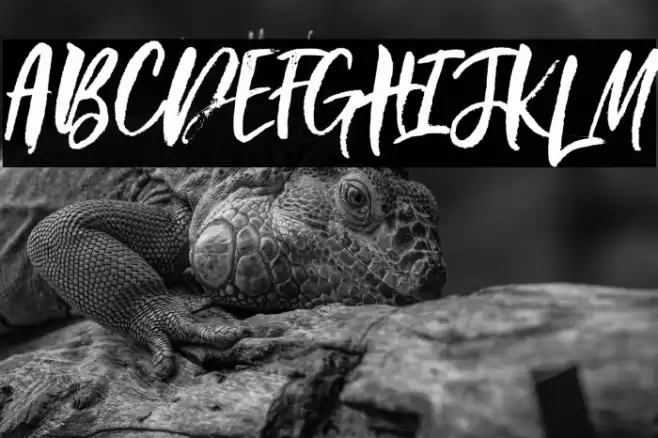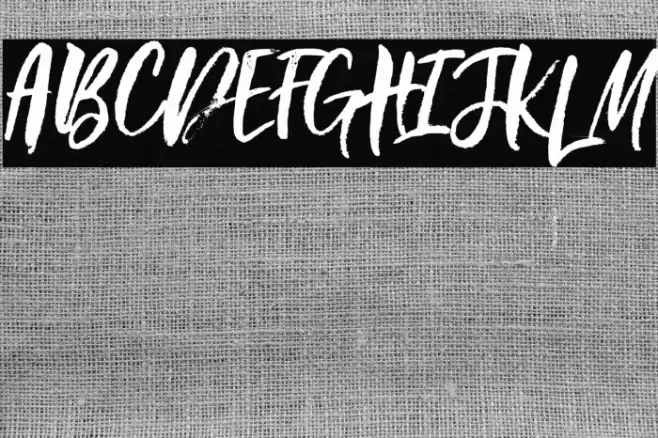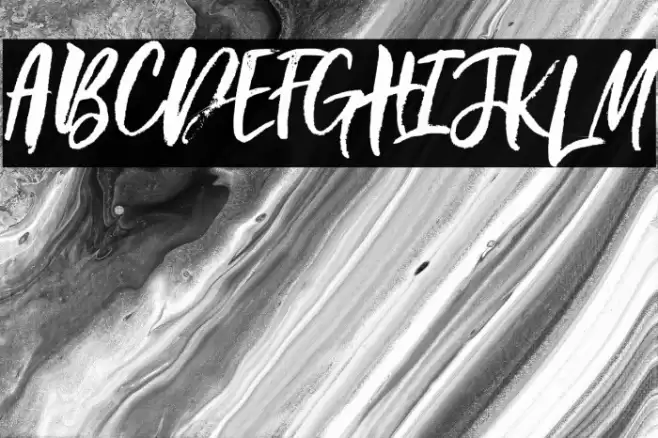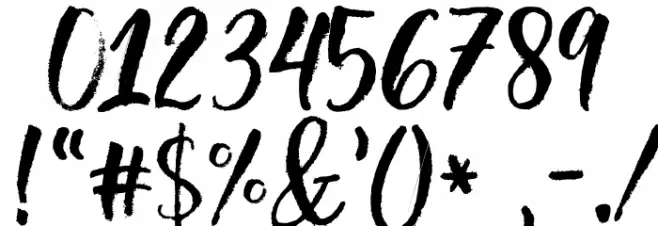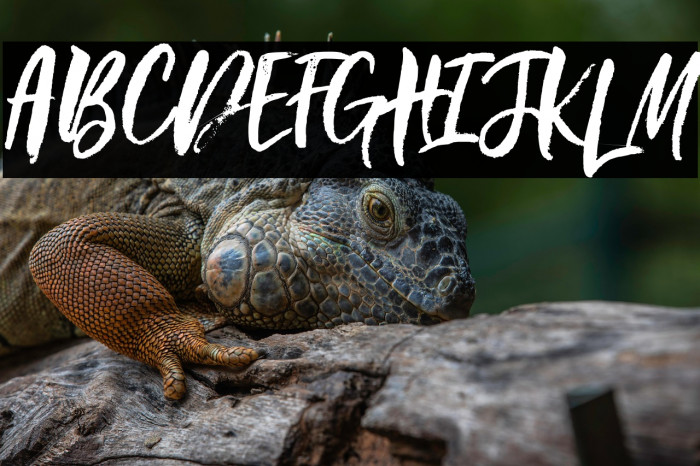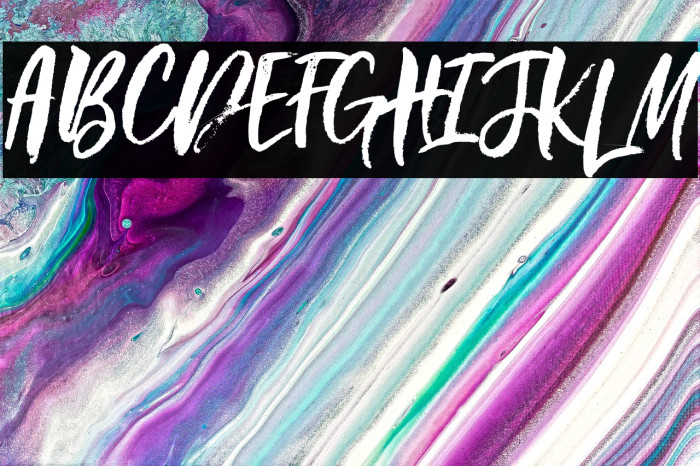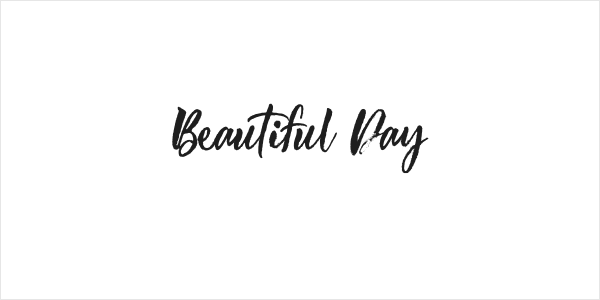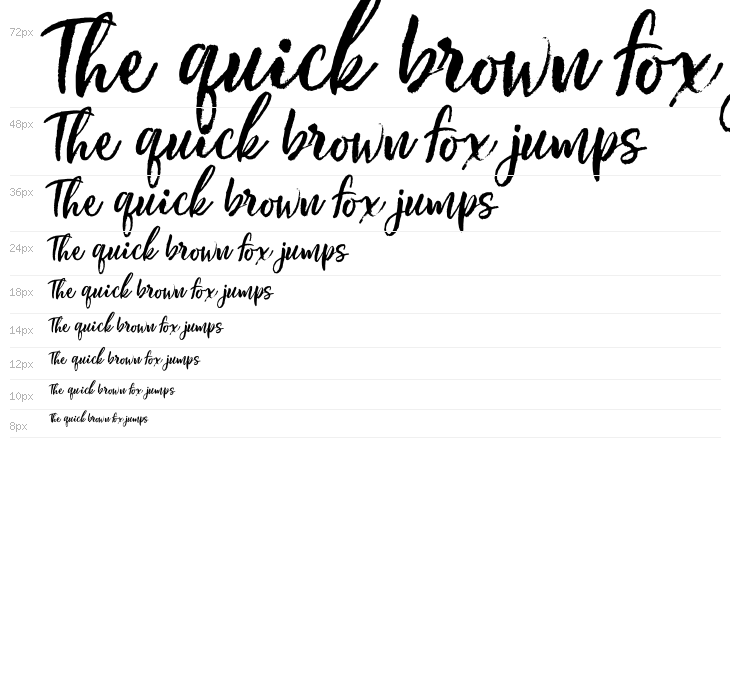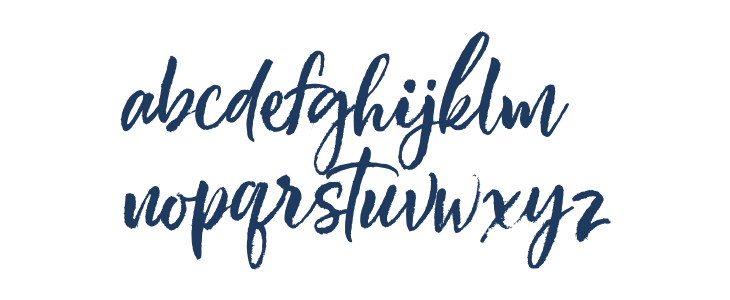
Beautiful Day Font
Beautiful Day Description
This font exudes a lively and energetic vibe with its bold, brush-like strokes and fluid, cursive style. The uppercase letters are dynamic and expressive, while the lowercase letters maintain a consistent flow, adding to the overall aesthetic. The numbers and special characters are crafted with the same attention to detail, ensuring a cohesive look across all elements. The font's hand-drawn appearance gives it a personal touch, making it ideal for projects that require a human element or artistic flair. Its boldness and unique style make it stand out, perfect for creating eye-catching designs.
A bold, brush-style cursive font with a lively and artistic flair from Uncategorized fonts.
- Font: Beautiful Day
- Proposed Projects: Ideal for greeting cards, posters, branding, and social media graphics.
- Use Case: Logos, Headlines, Artistic projects